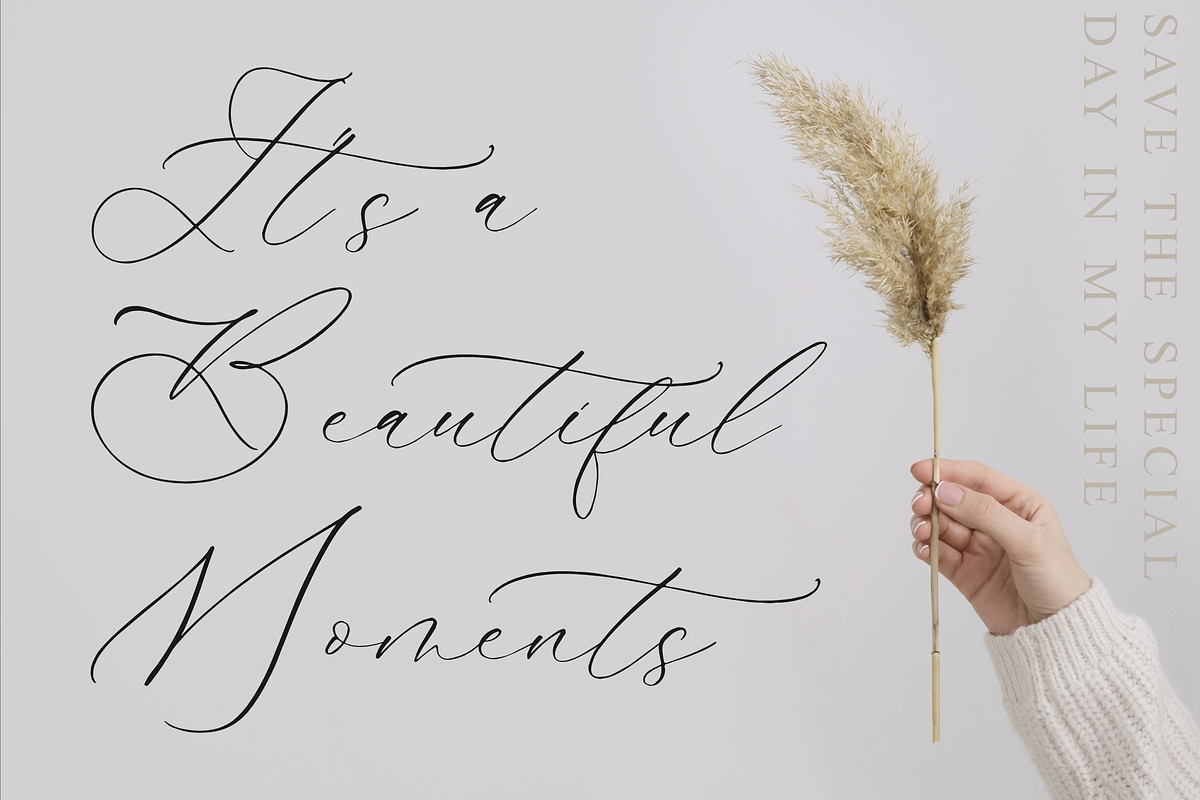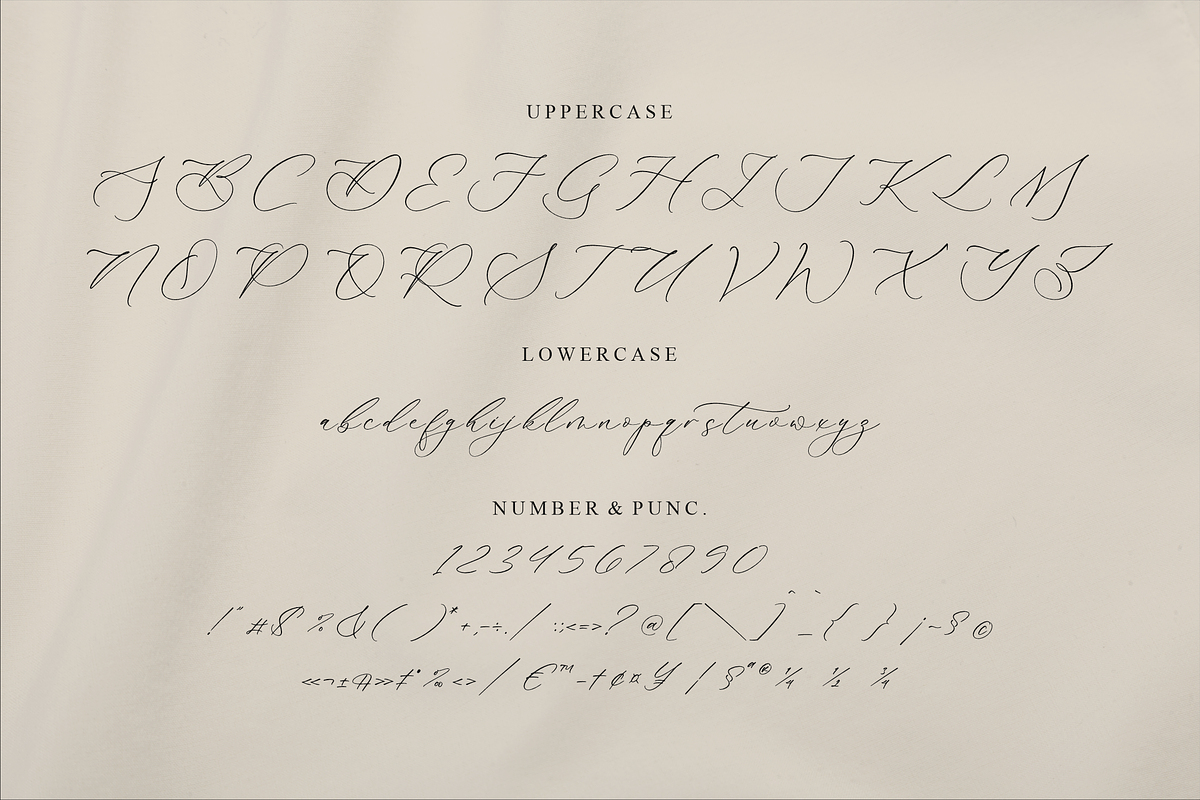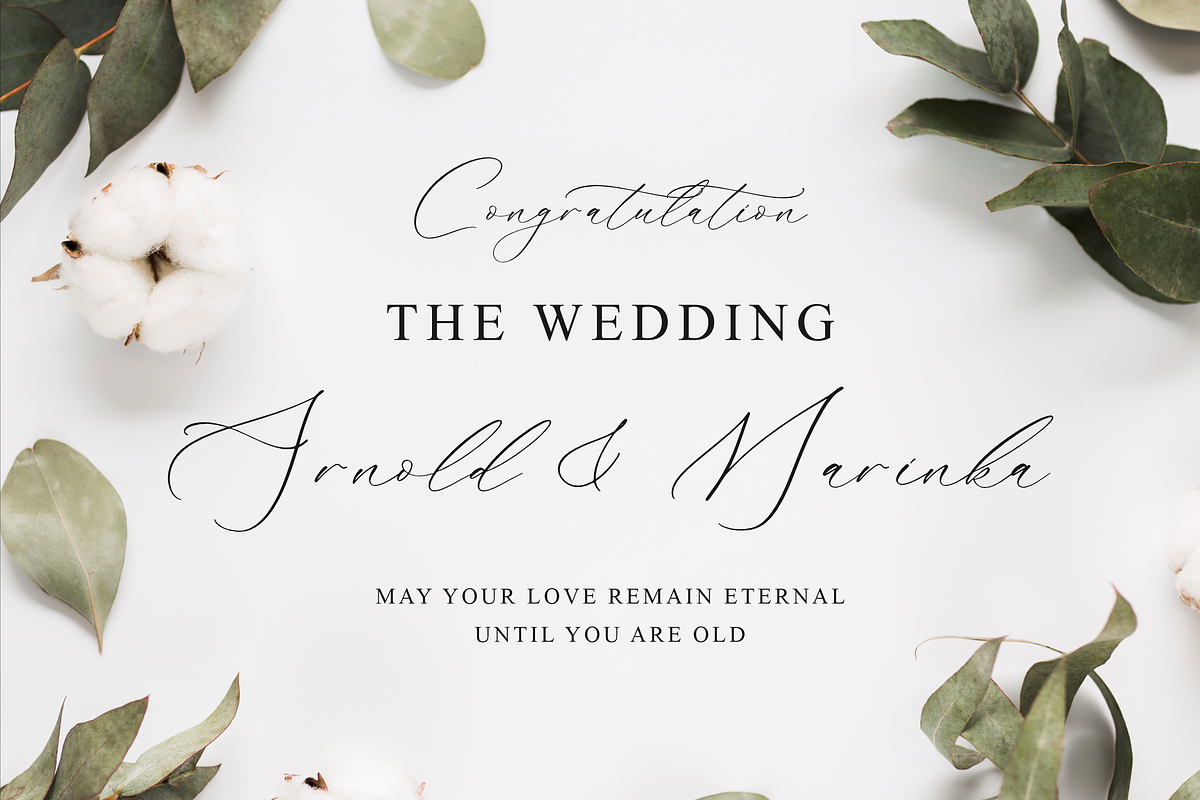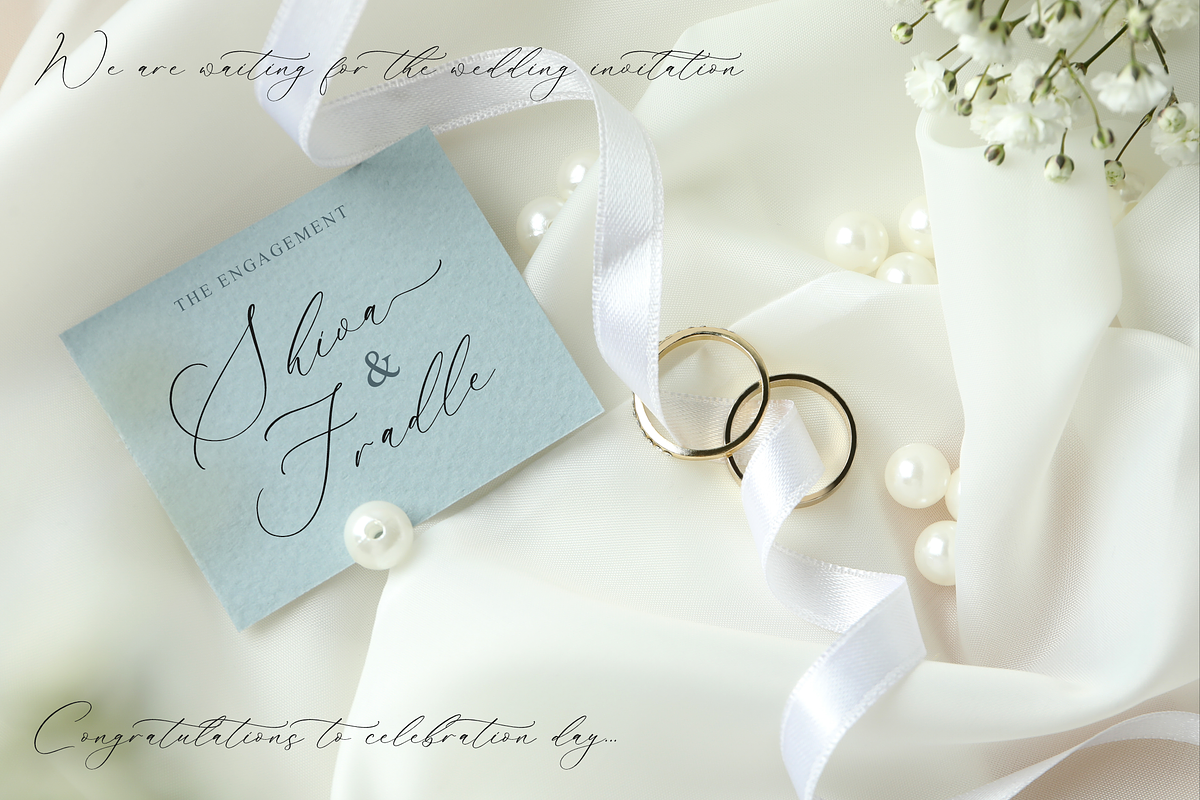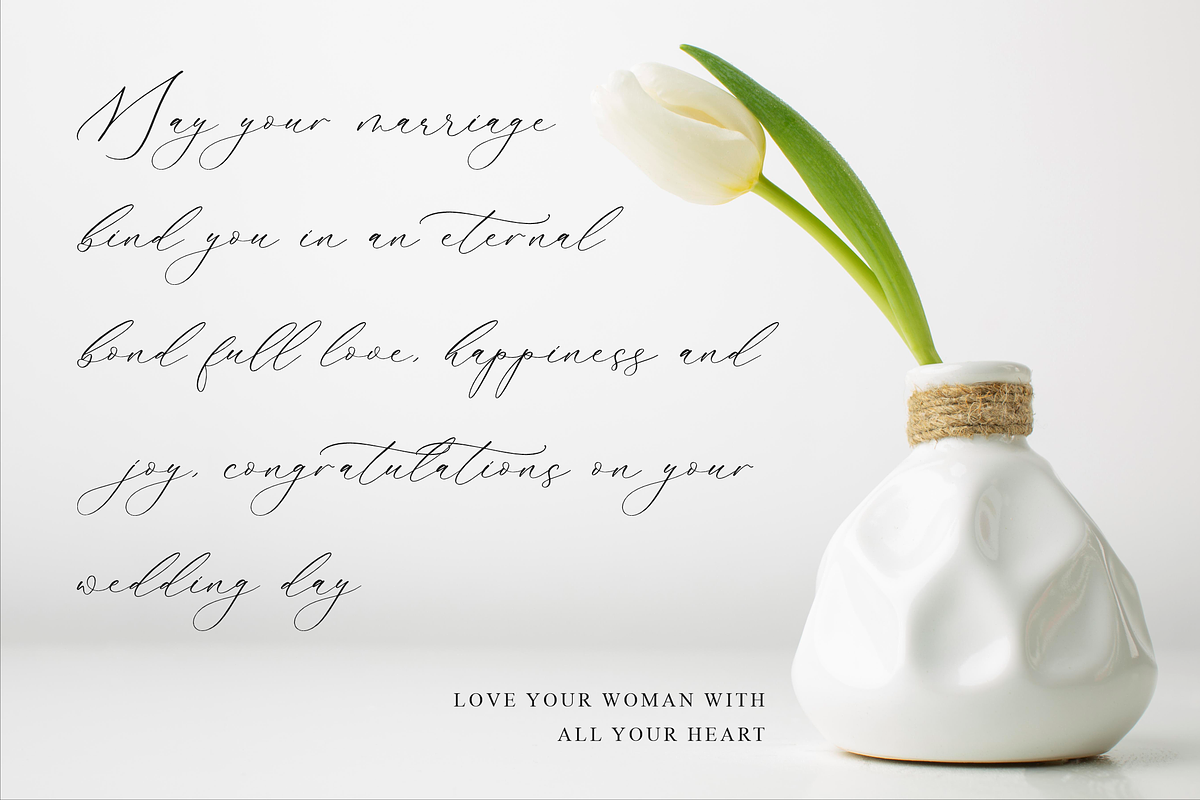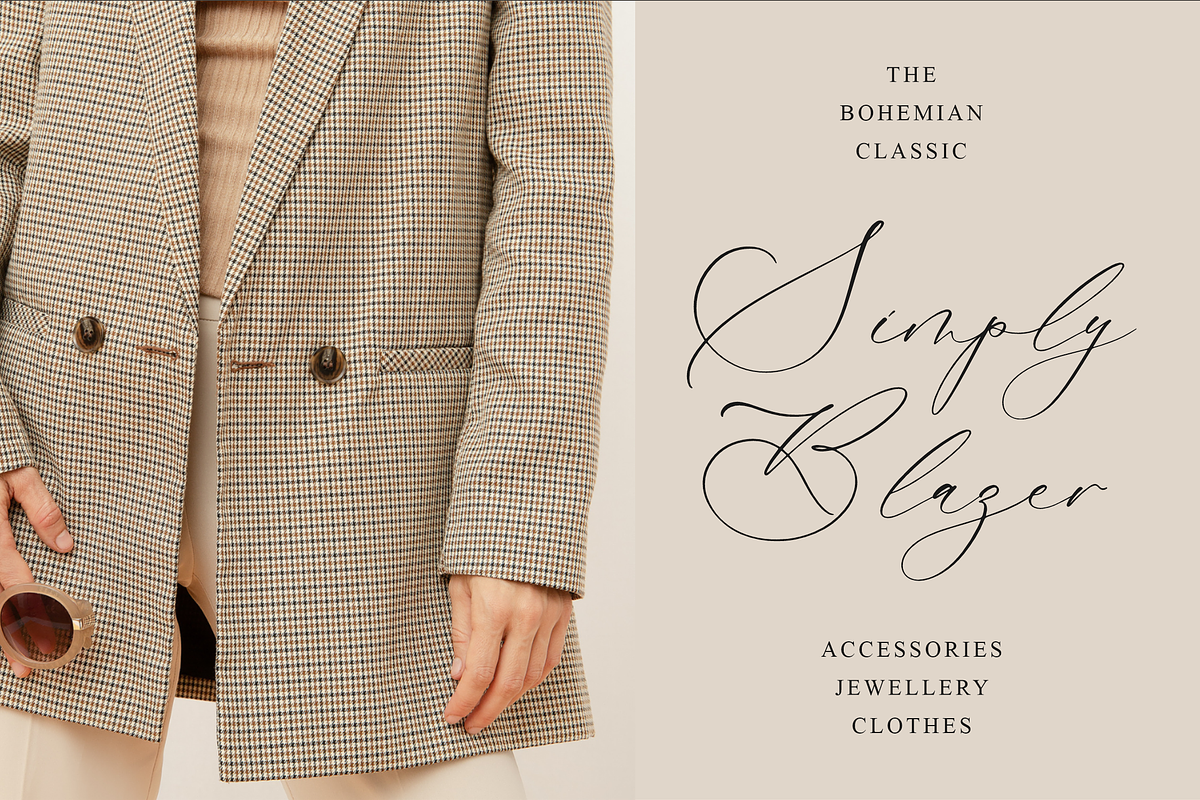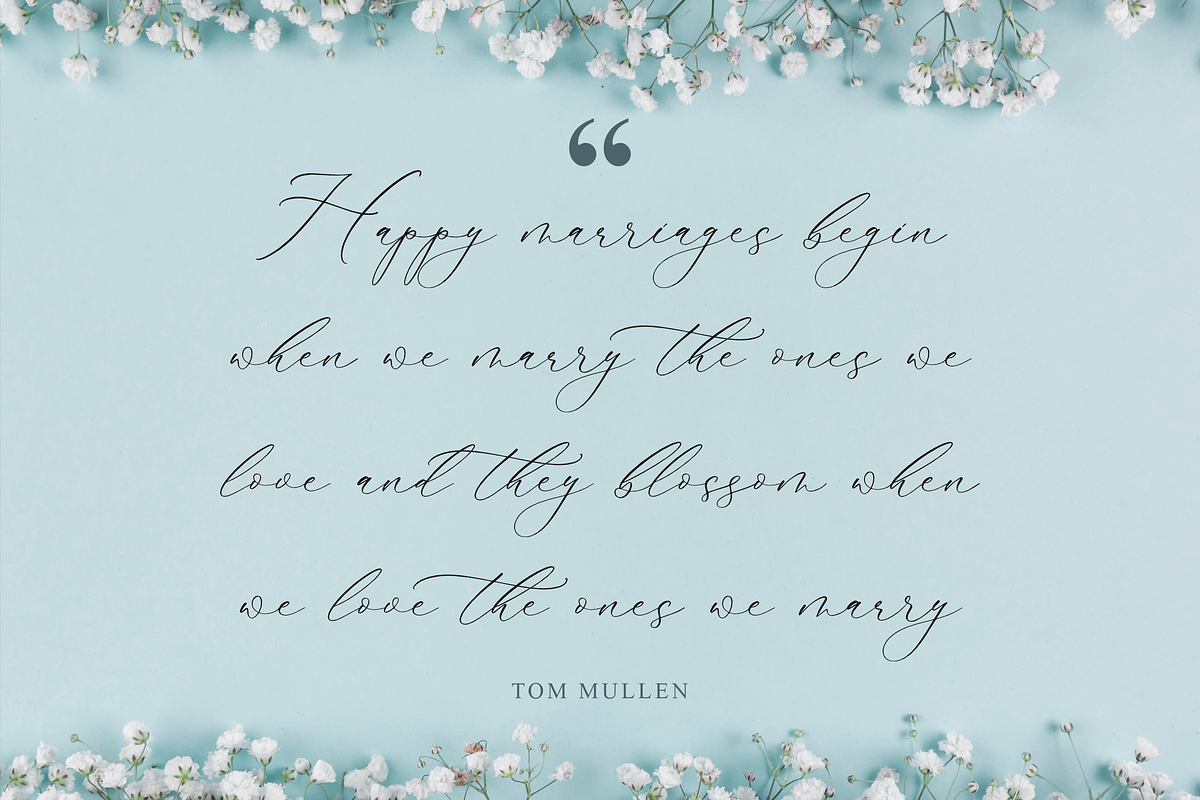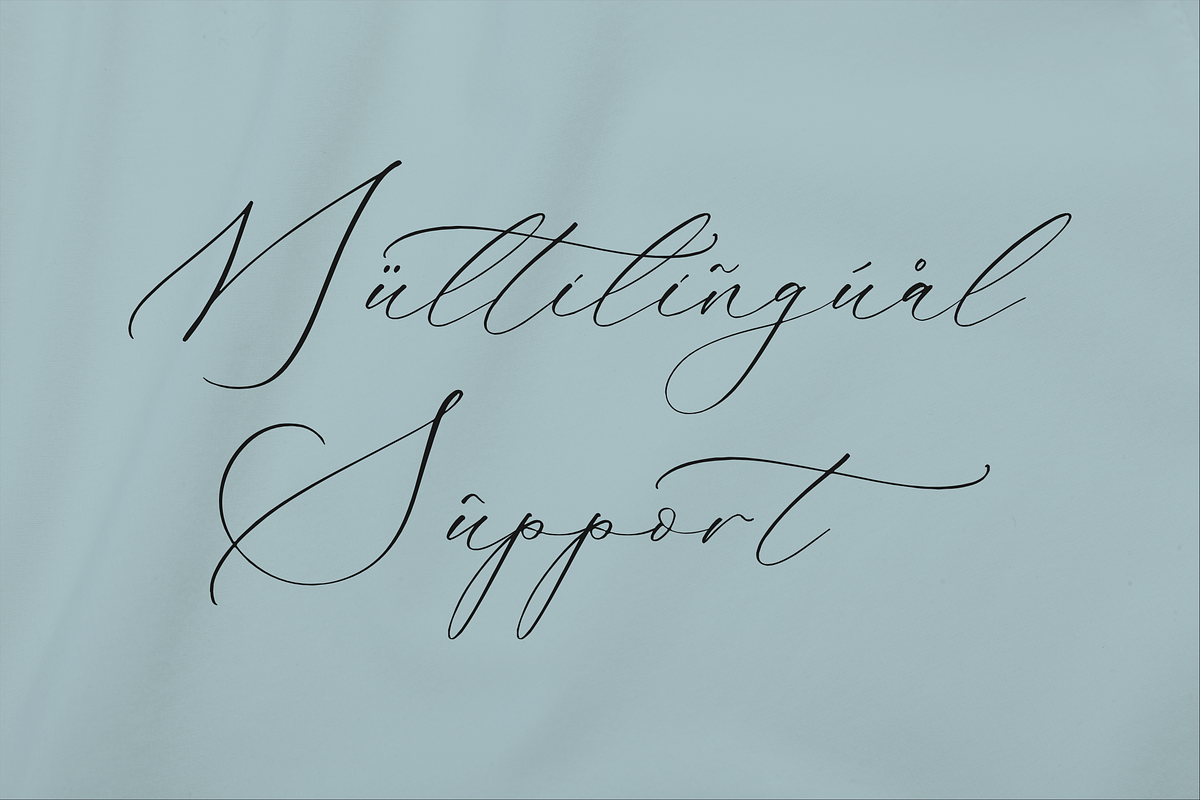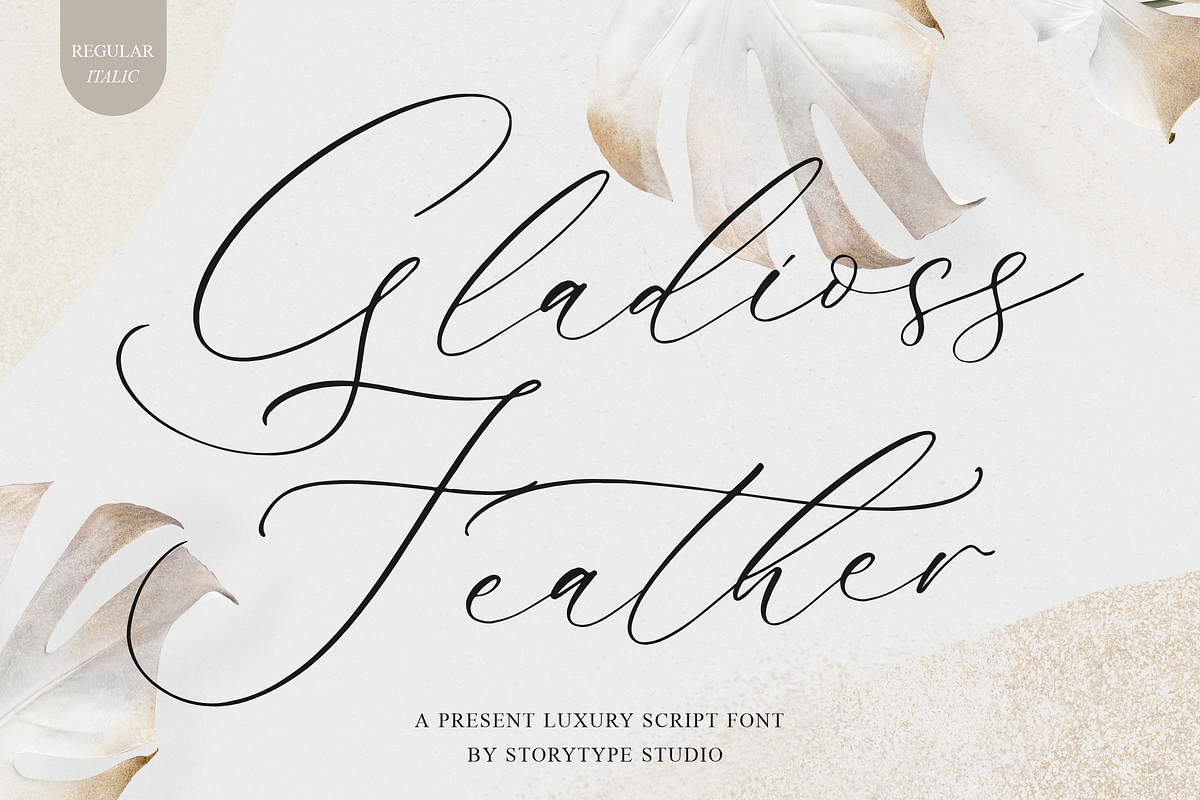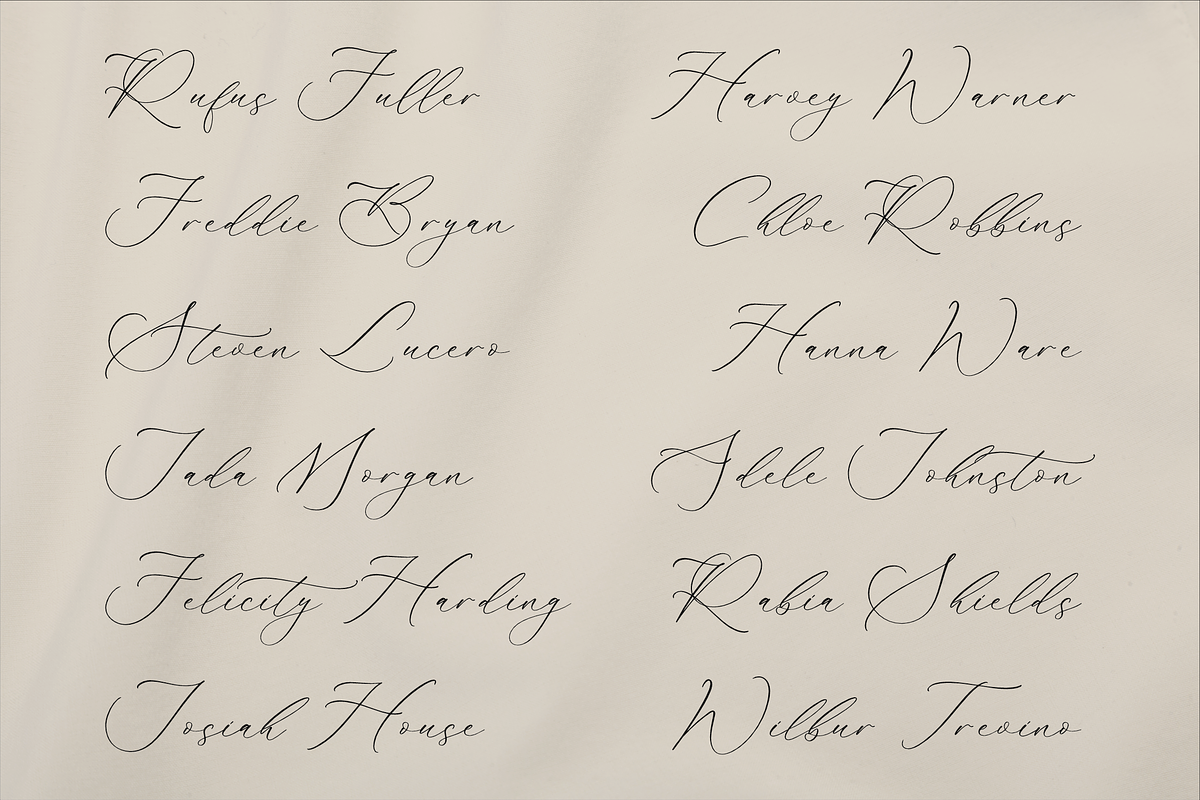
Gladioss Feather Luxury Script Font
Proudly present Gladioss Feather - Luxury Script Font , created by Storytype, A luxury script that has own unique style & modern look. This typeface is perfect for an elegant & luxury logo, book or movie title design, fashion brand, magazine, clothes, lettering, quotes, and so much more.